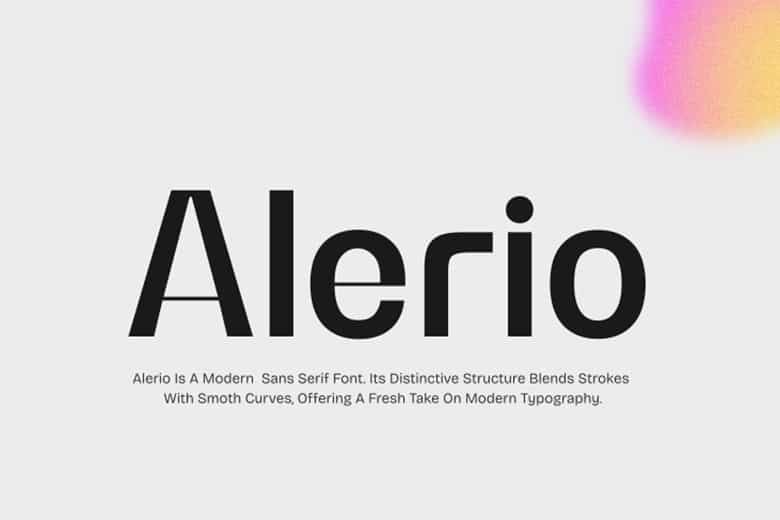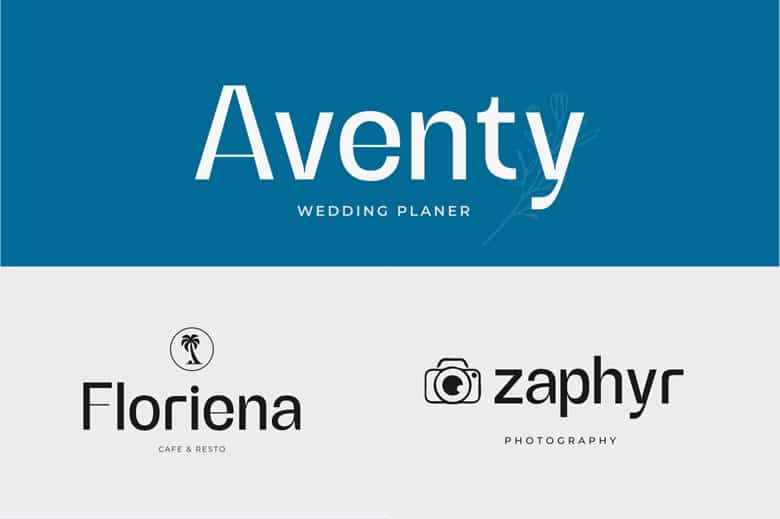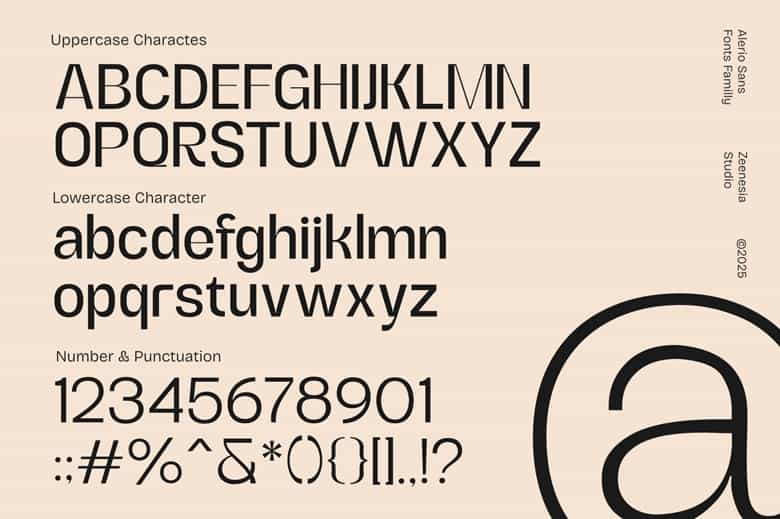
Alerio is a modern sans serif font with ageless elegance as if it never left us and modern adaptability. Alerio is created at a sophistication and accuracy level, and comes in with a unique charm to fill the mark, all for varying editorial requirements. The history of it makes it more than a font; it’s a tool of variation with much potential to breathe life into your designs and/or narratives.